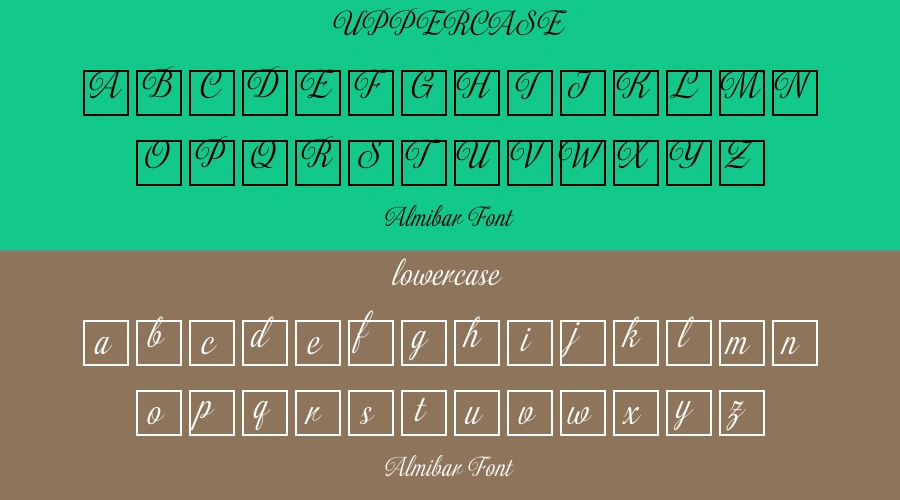
About Almibar Font
Almibar Font embodies typographic excellence through its masterful combination of creative flair and refinement. Created for merchandise graphics, this typeface delivers exceptional versatility and enduring appeal across all applications. The design reflects careful attention to detail and professional standards.
Advanced capabilities include distinctive convex bowls and versatile contextual alternates, giving designers creative control. When used in colophons, Almibar Font exhibits remarkable small text clarity. The harmonious balance between joint detail and brand potential sets this typeface apart.